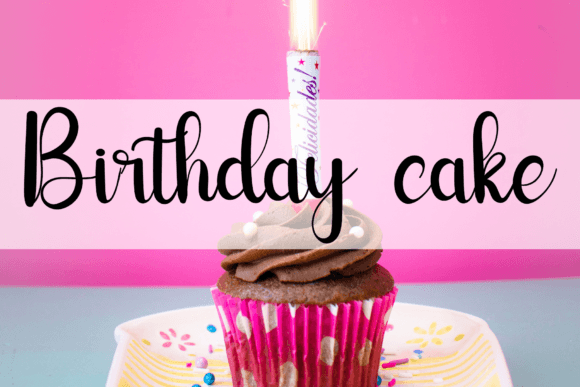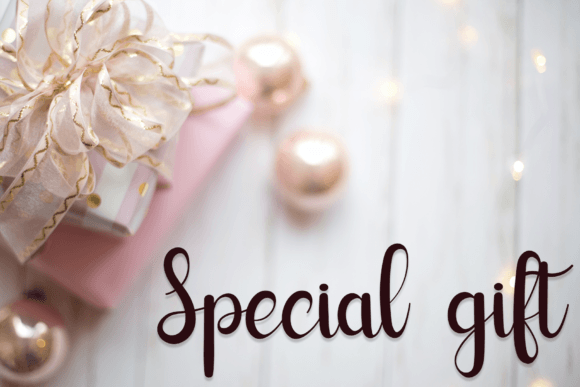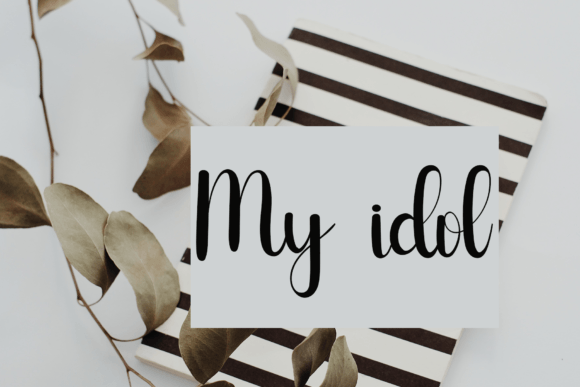
Introduction to Happy Brithday Font
Happy Brithday is an exquisite handwritten font, masterfully designed to become a true favorite.
Key Features of Happy Brithday Font
Why Choose Happy Brithday Font?
Happy Brithday Font offers exceptional quality and versatility, making it a valuable addition to your design toolkit. Whether you’re creating for personal projects or commercial use, Happy Brithday Font delivers professional results.